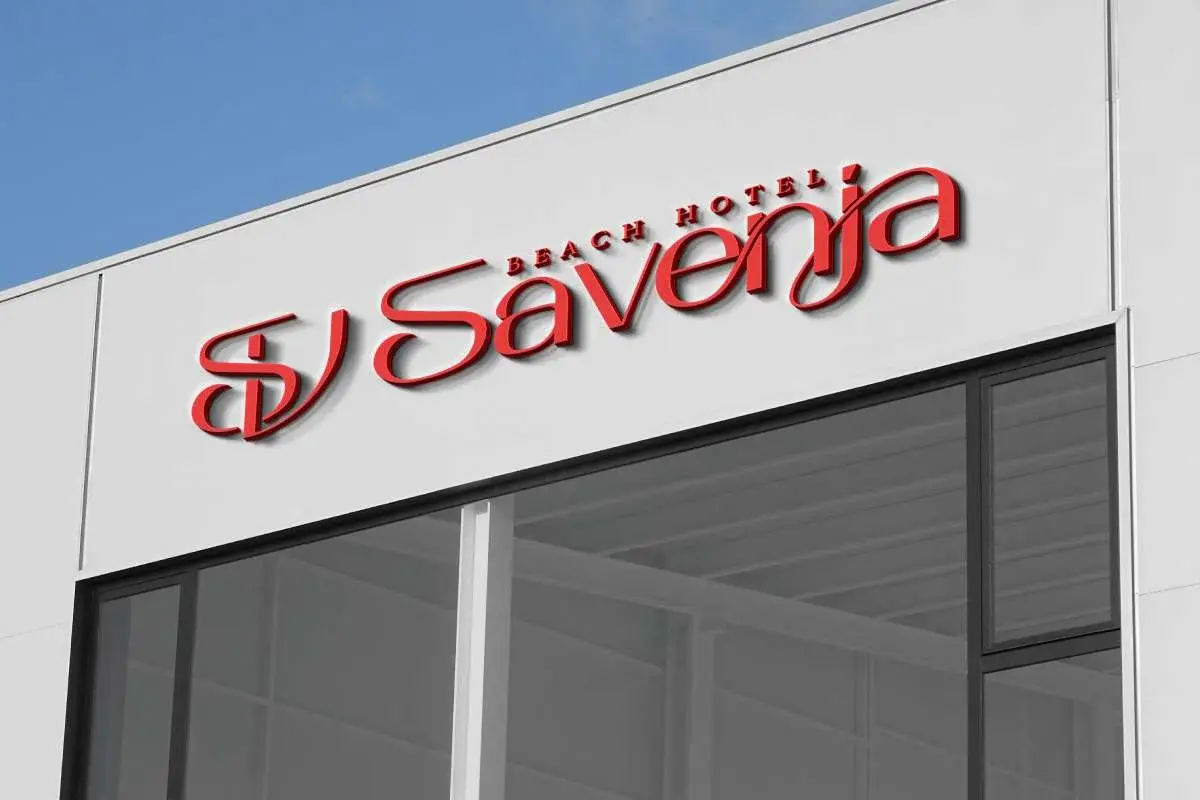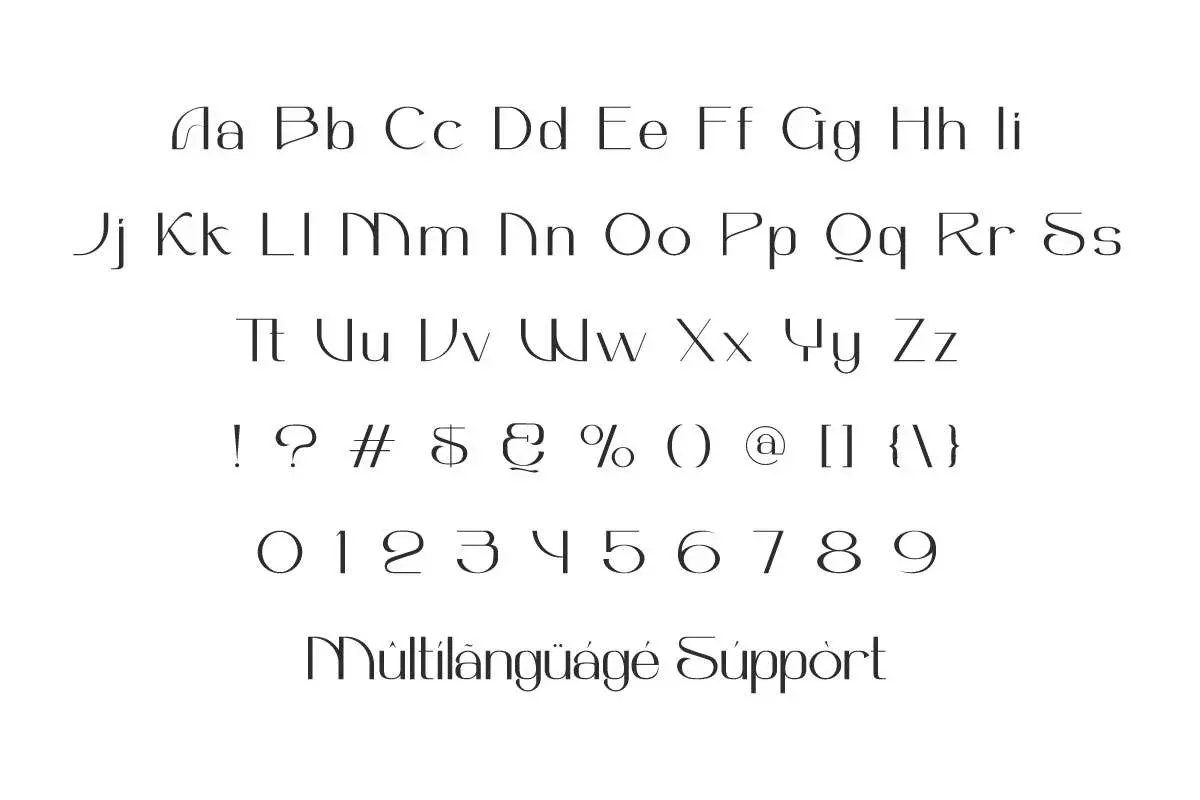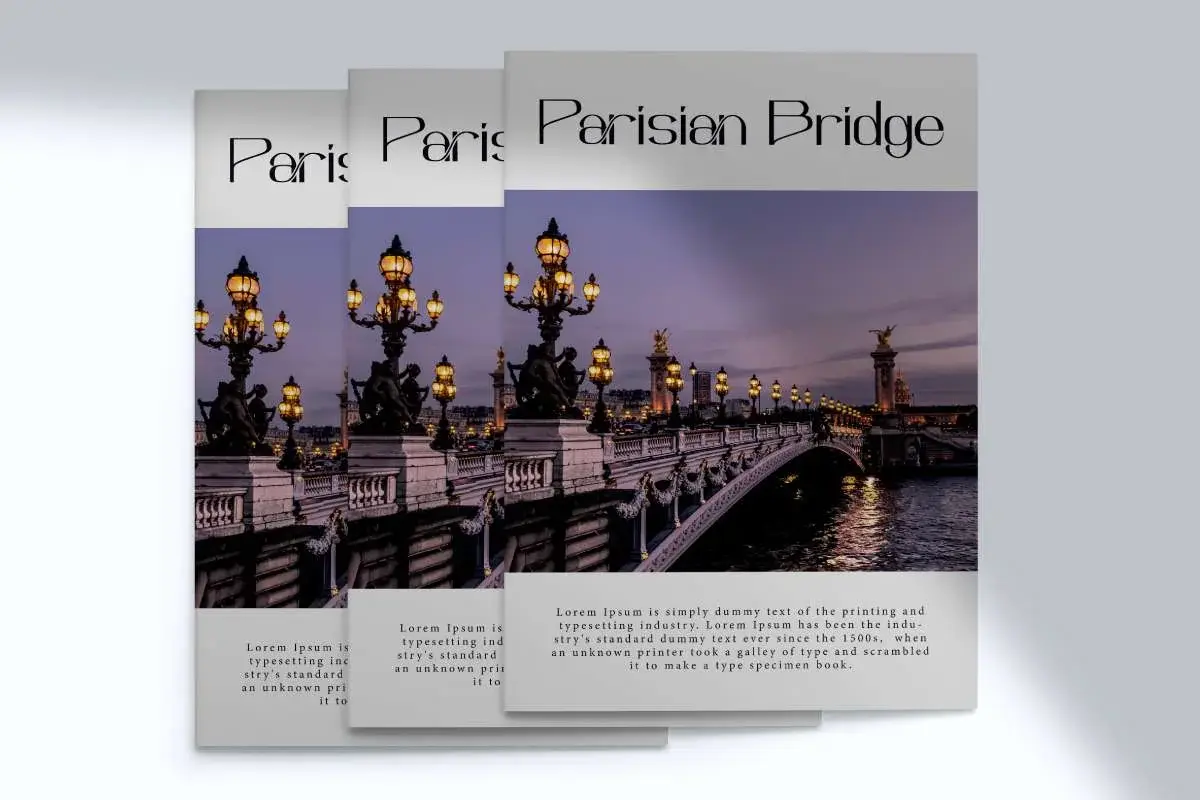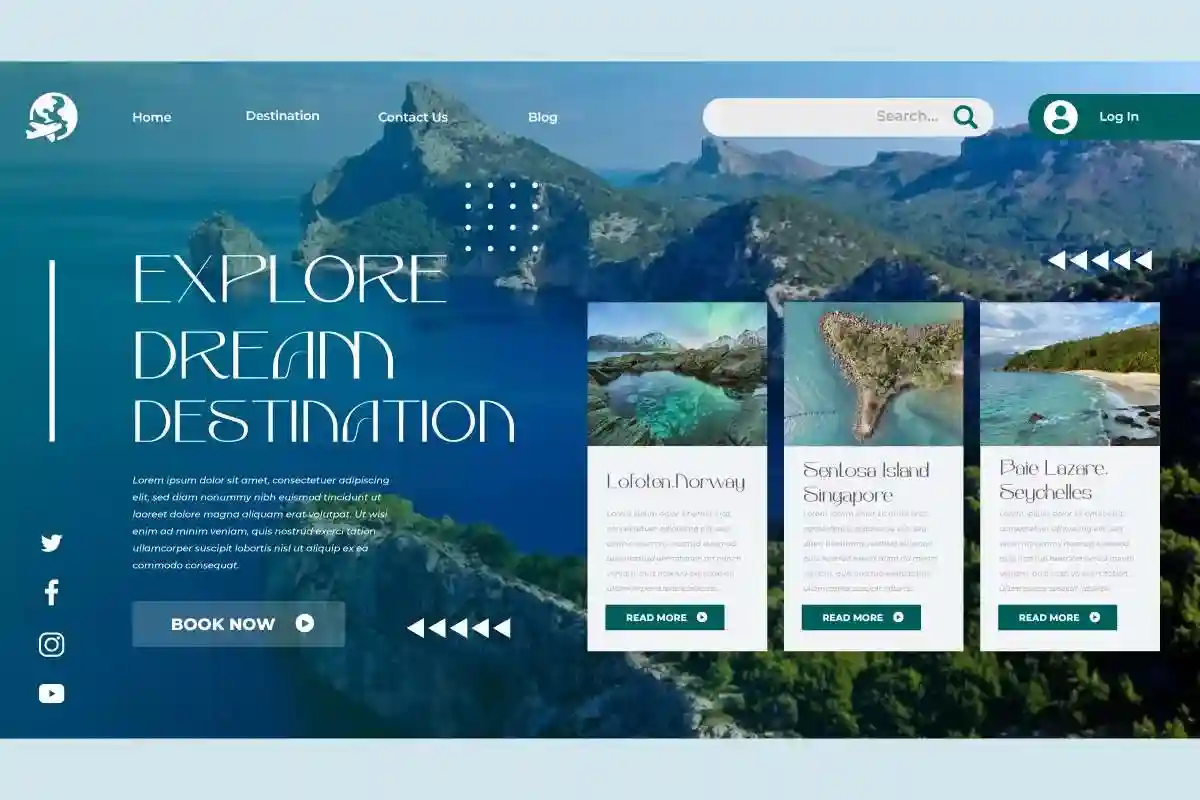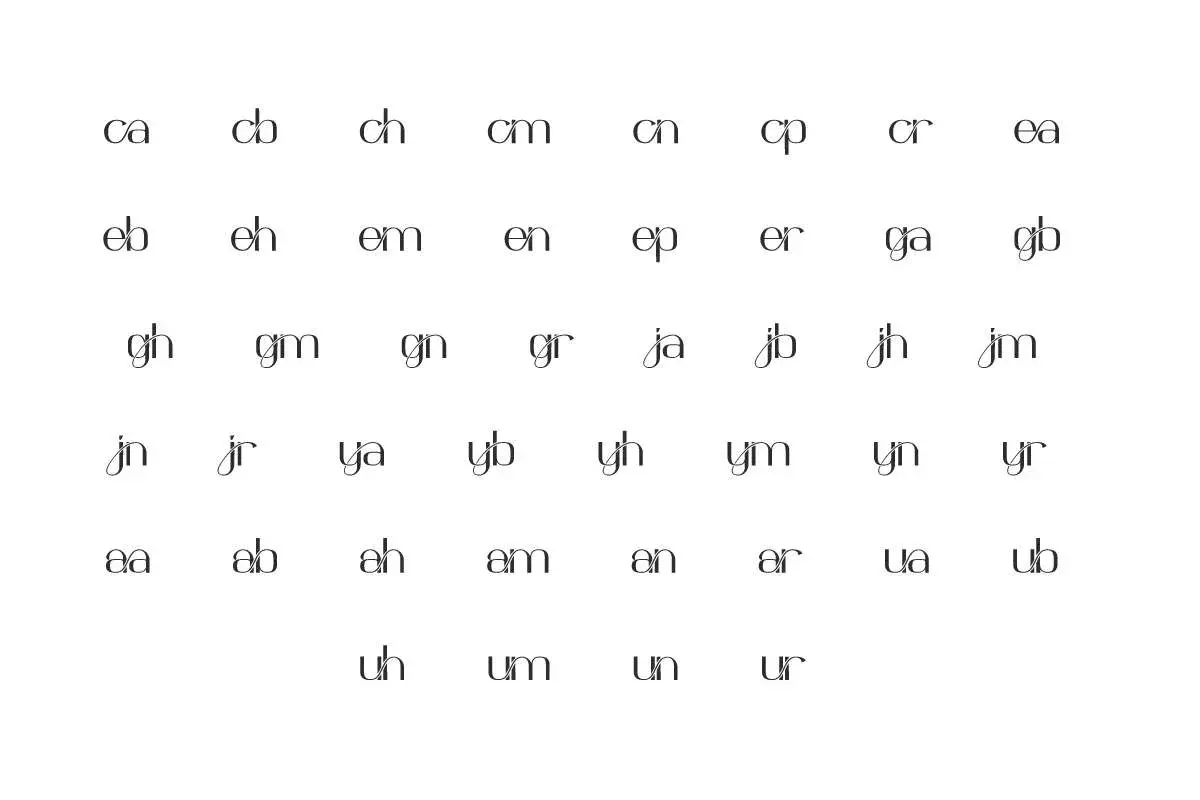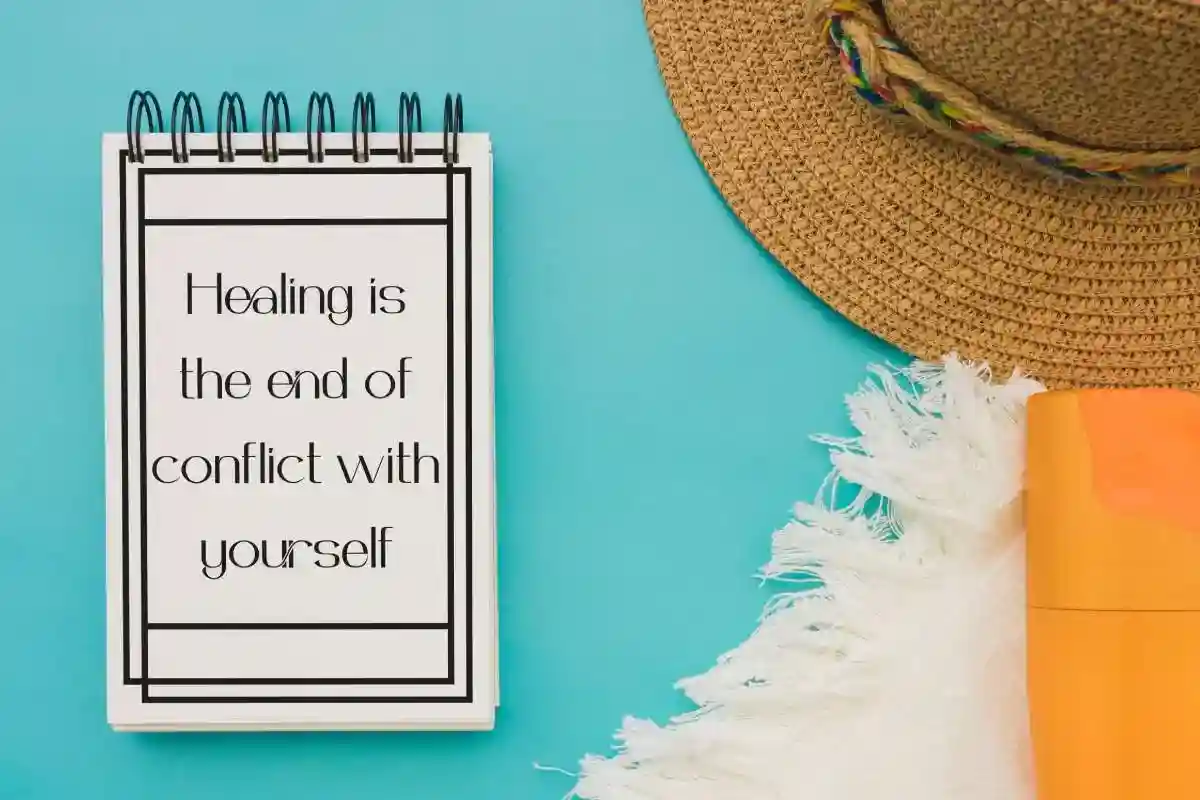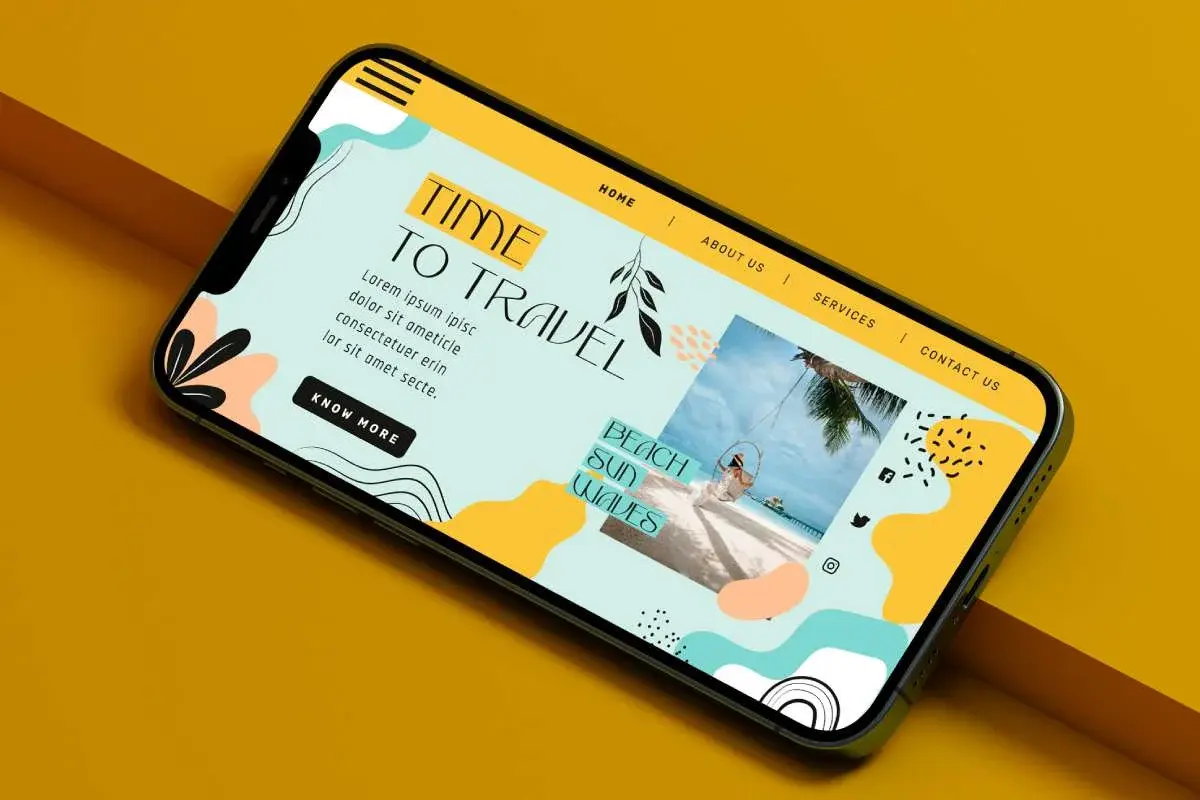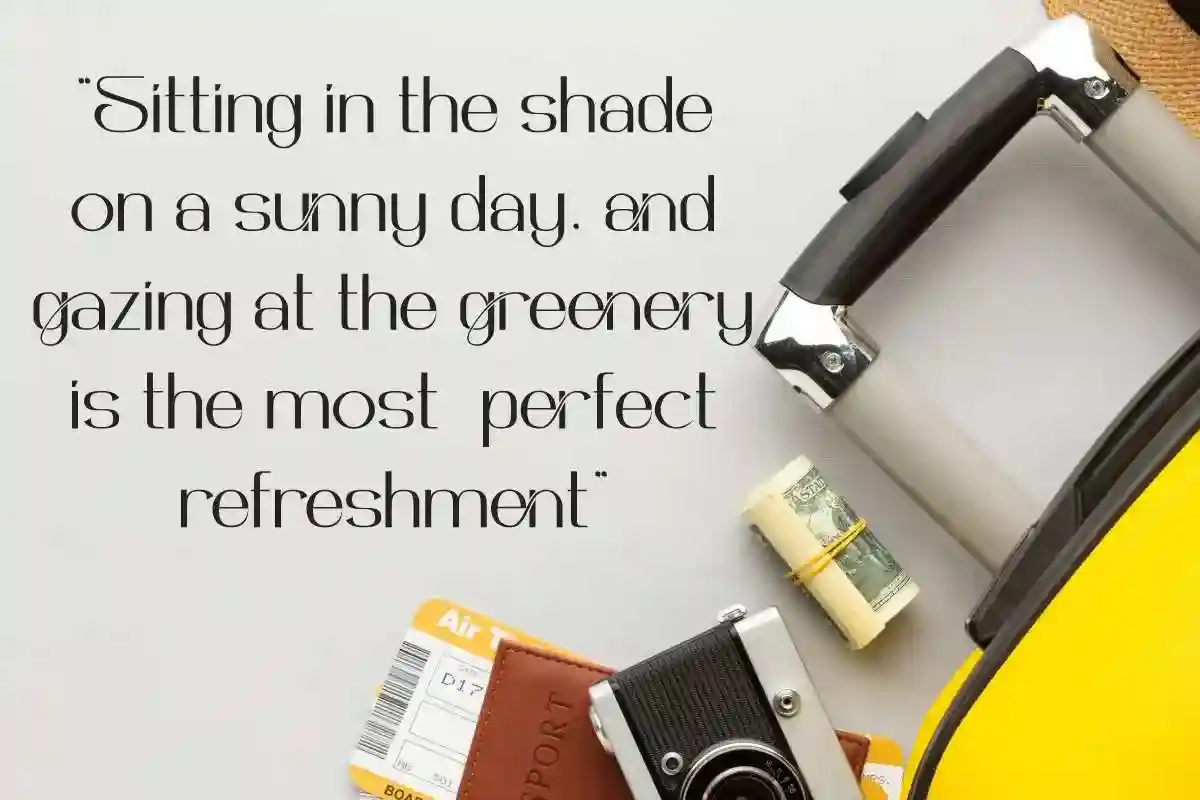
Healing Again Font is an elegant sans serif display font with an extraordinary modern style. It will be perfect for cover, fashion, photography, signage, travel agent, and etc.
Healing Again Font is an elegant sans serif display font with modern eye – catching style. It will be able to make your designs to another level, such as apps, billboard, brand logo, brochure, business card, catalog, cover, embossed design, flyer, header, invitation, label, magazine catalog, mockup design, poster, product packaging, quote, screen print, signage, stationery, sticker, title, website, etc.
Healing Again Font includes full set of Uppercase and Lowercase Basic Characters, Number, Punctuation, and Symbol. It’s trendy with an artistic touch so it will enhance your business, such as accessories, boutique, craft, fashion designer, furniture, hotel, lodging, music, perfume brand, photography, real estate, restaurant, and many more.